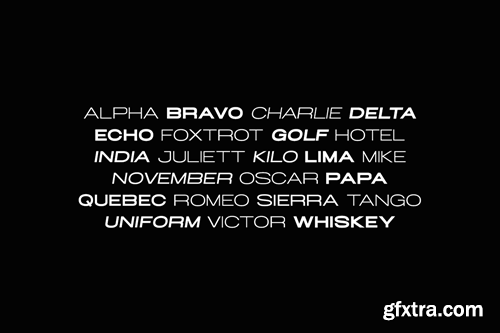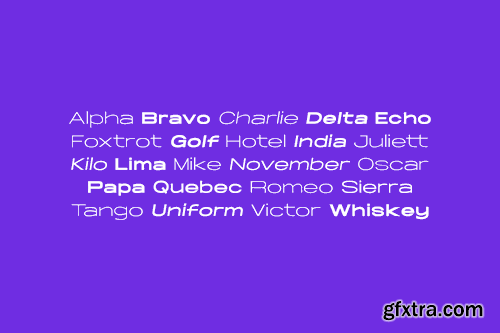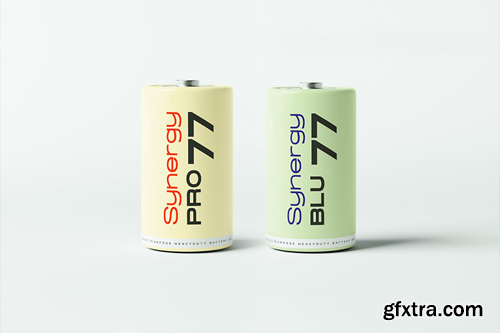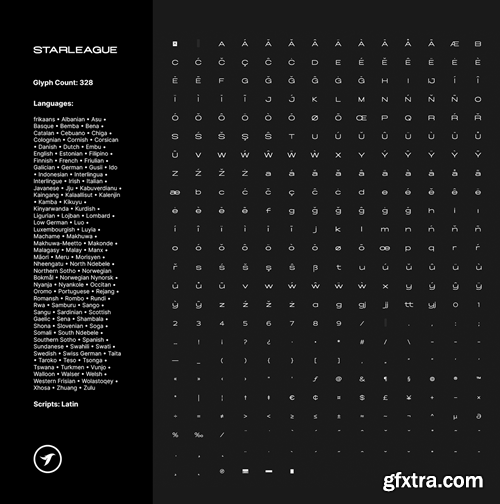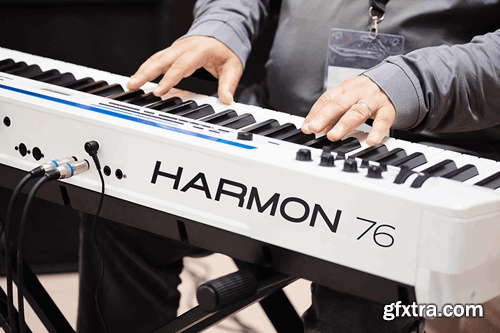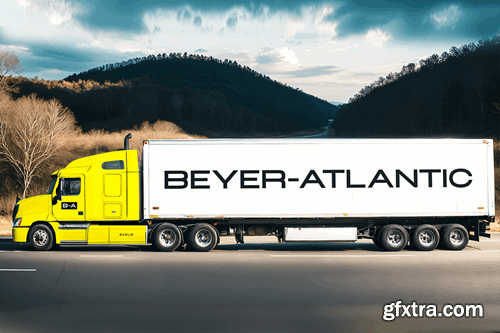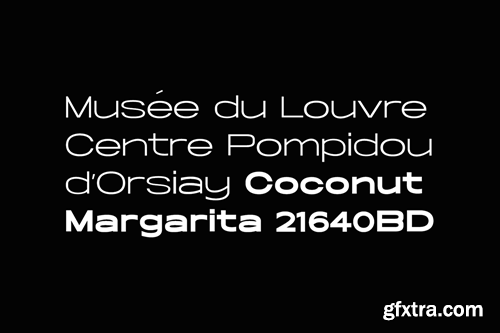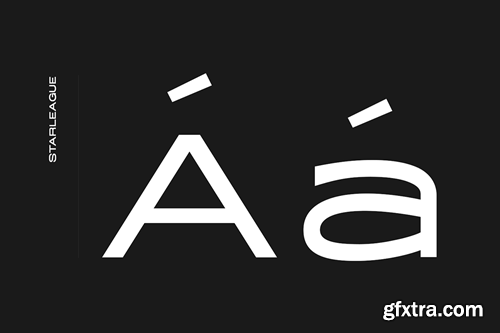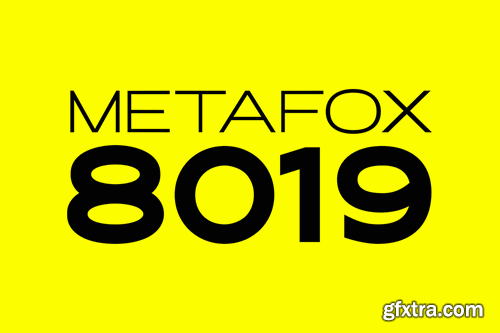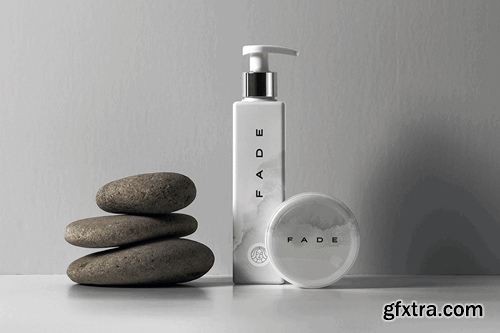
STARLEAGUE is a unique sans-serif font family that can be the perfect choice for branding, logotypes, and display purposes. It is especially suitable for creating bold and headline typography, exceptional logos, promotional content, and marketing graphics that can capture your visitors' attention. By adjusting the letterspacing of the font, you can have more design options for your creative projects. Take a look at the examples above to get a better idea of the potential of this typeface. The STARLEAGUE family contains a total of 8 fonts featuring five weights with uprights and italics. Each weight includes extended language support including Western European & Central European sets. A total of 350 glyphs are included. The pack contains OTF, and TTF as Desktop fonts, and optional Web Fonts (all EOT, SVG, TTF, WOFF, and WOFF2 formats included) FEATURES: STARLEAGUE font family includes a collection of 8 fonts in total, with four upright weights and Italic equivalents of all four weights as follows: 328 GLYPHS INCLUDED: Handcrafted and designed with powerful OpenType features in mind, each weight includes extensive language support with Western European, Central European, and South Eastern European sets. A total of 328 glyphs are available. EXTENSIVE LANGUAGE SUPPORT: Afrikaans • Albanian • Asu • Basque • Bemba • Bena • Catalan • Cebuano • Chiga • Colognian • Cornish • Corsican • Danish • Dutch • Embu • English • Estonian • Filipino • Finnish • French • Friulian • Galician • German • Gusii • Ido • Indonesian • Interlingua • Interlingue • Irish • Italian • Javanese • Jju • Kabuverdianu • Kaingang • Kalaallisut • Kalenjin • Kamba • Kikuyu • Kinyarwanda • Kurdish • Ligurian • Lojban • Lombard • Low German • Luo • Luxembourgish • Luyia • Machame • Makhuwa • Makhuwa-Meetto • Makonde • Malagasy • Malay • Manx • Māori • Meru • Morisyen • Nheengatu • North Ndebele • Northern Sotho • Norwegian Bokmål • Norwegian Nynorsk • Nyanja • Nyankole • Occitan • Oromo • Portuguese • Rejang • Romansh • Rombo • Rundi • Rwa • Samburu • Sango • Sangu • Sardinian • Scottish Gaelic • Sena • Shambala • Shona • Slovenian • Soga • Somali • South Ndebele • Southern Sotho • Spanish • Sundanese • Swahili • Swati • Swedish • Swiss German • Taita • Taroko • Teso • Tsonga • Tswana • Turkmen • Vunjo • Walloon • Walser • Welsh • Western Frisian • Wolastoqey • Xhosa • Zhuang • Zulu Scripts: Latin FONT FILE FORMATS: The pack contains Desktop Fonts (OTF, TTF) and Web Fonts (all EOT, SVG, and WOFF included) as licensing options. HTML & CSS WebFont preset and demo are available in the download pack. CREDITS: Typeface designed & distributed by Designova®, made with ♥ in Berlin.